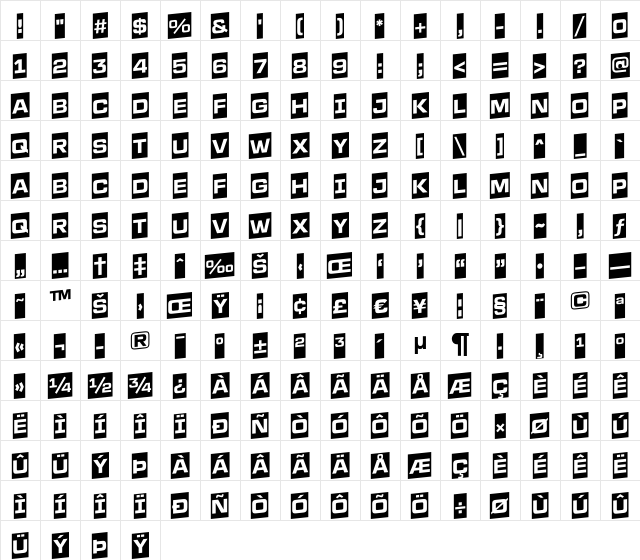
a_LineaSansCmUp Bold
| Designer | W.Chufarofsky & M.Slutsker |
Design Context for a_LineaSansCmUp Typeface
a_LineaSansCmUp is a composed and adaptable typeface that performs quietly and consistently across a wide range of design contexts. The heavy weight commands attention and anchors typographic hierarchies.